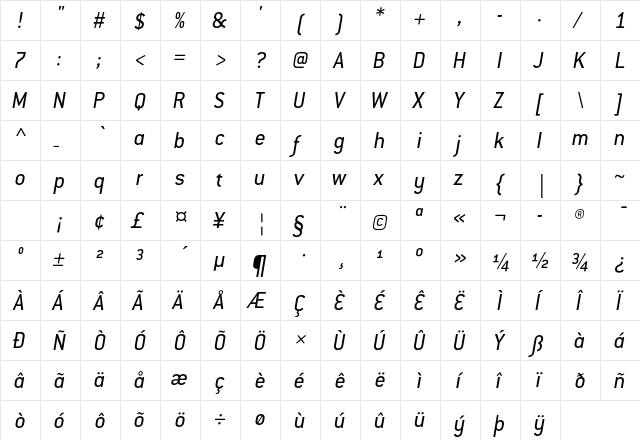
ConduitITCStd Italic
| Designer | Mark van Bronkhorst, MvB Design |
Design Context for ConduitITCStd Typeface
ConduitITCStd is a composed and adaptable typeface that performs quietly and consistently across a wide range of design contexts. The slanted form adds forward momentum and visual energy. The condensed width makes it efficient for tight spaces without sacrificing legibility.
Pro Tip: Use ConduitITCStd for emphasis, pull quotes, and subheadings where its slanted energy can add rhythm to the layout.